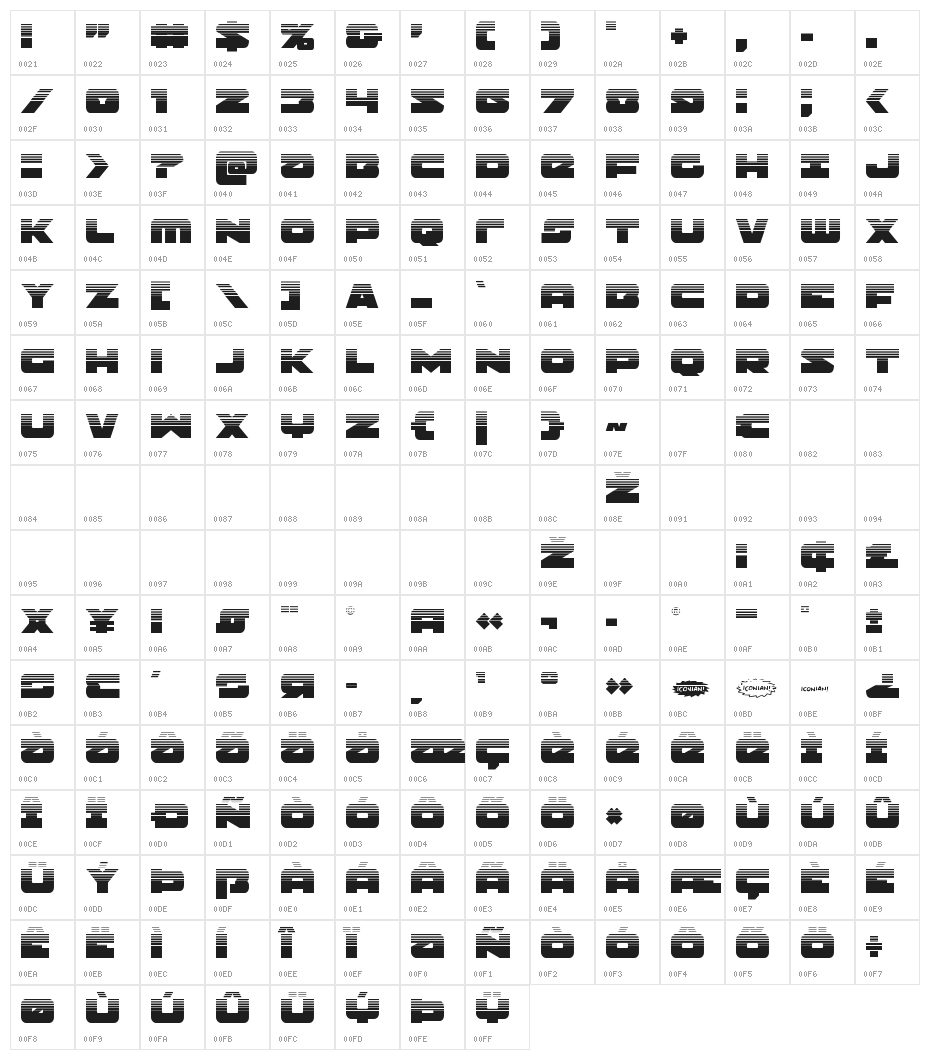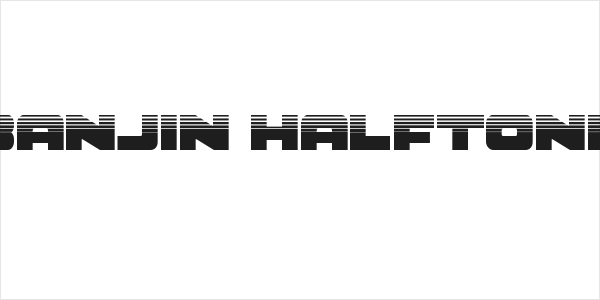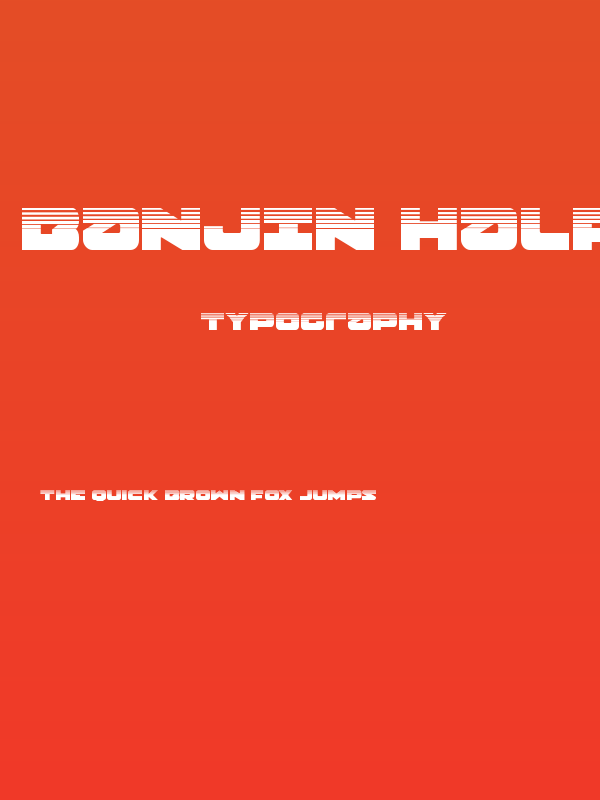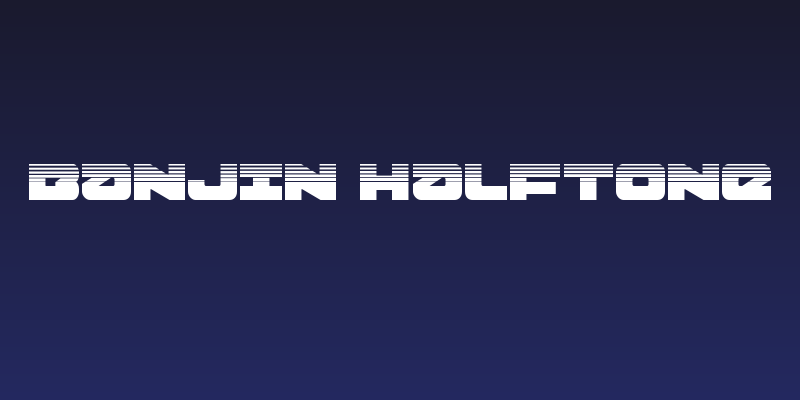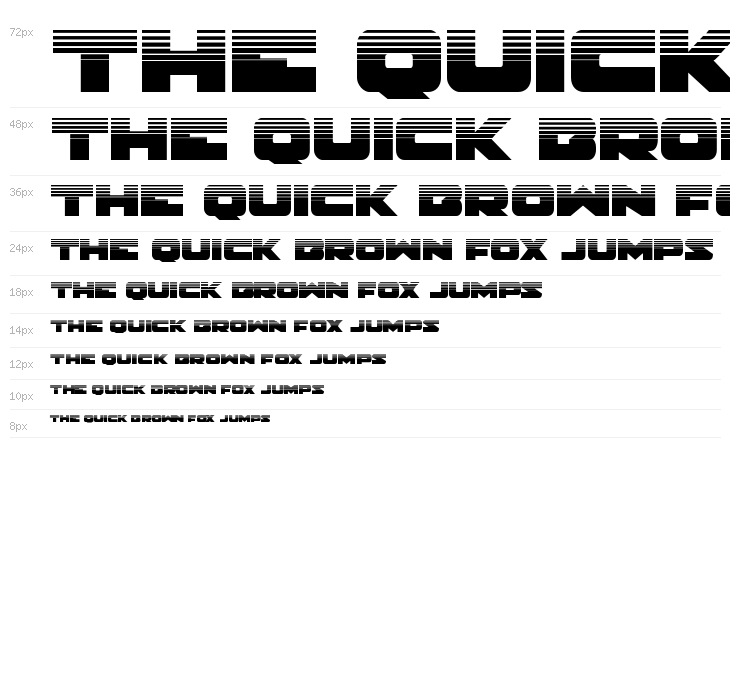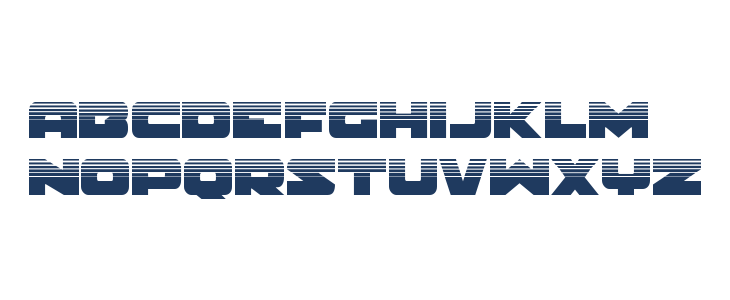
Banjin Halftone Font
Banjin Halftone Description
This font features a bold and dynamic design with a halftone effect, characterized by horizontal lines that create a sense of movement and depth. The uppercase letters are robust and angular, giving a futuristic and industrial feel. The numerals and special characters maintain the same boldness and halftone pattern, ensuring consistency across all characters. The unique style is eye-catching and suitable for projects that require a modern and edgy aesthetic. The font's structure is solid, with each character having a distinct presence, making it ideal for impactful headlines or branding materials.